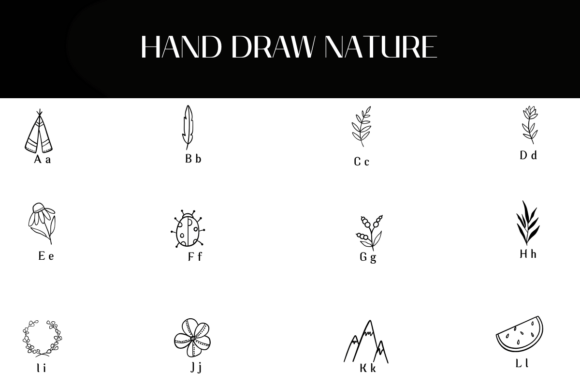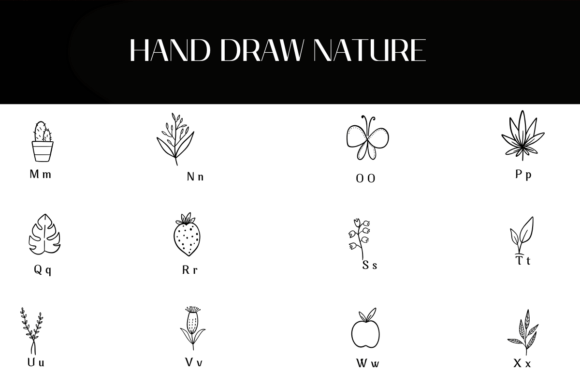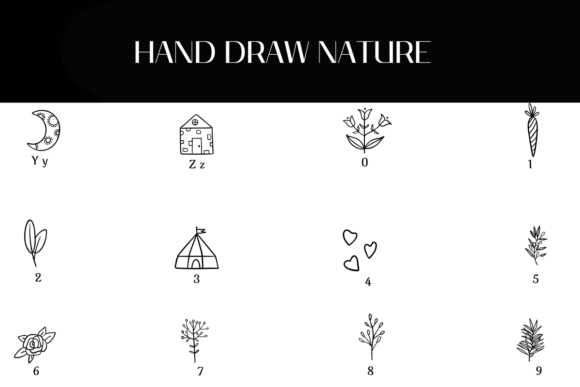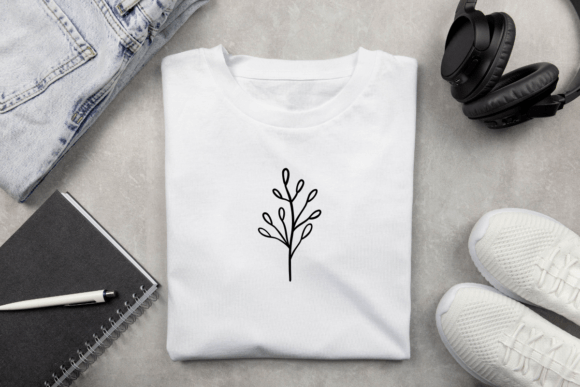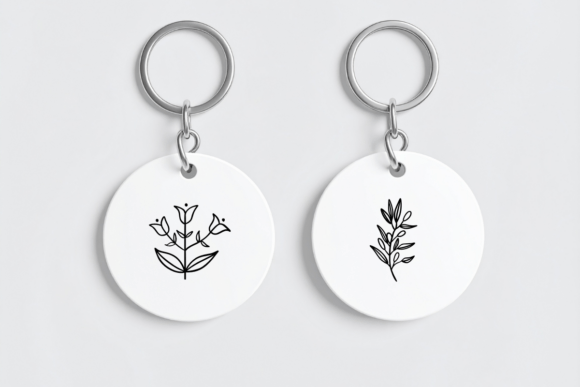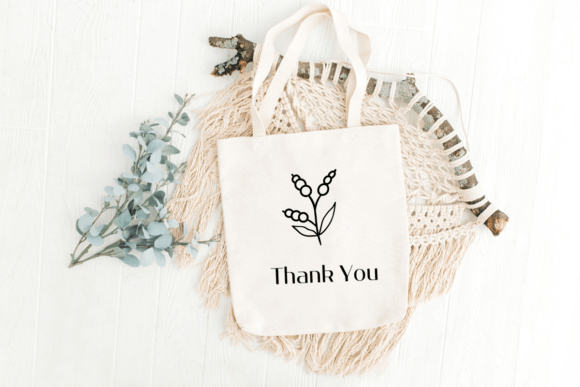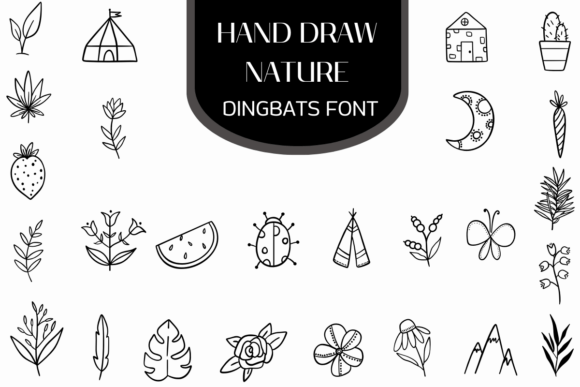
Introducing the Hand Draw Nature Font: A Whimsical Collection of Nature-Themed Icons
Are you a designer, crafter, or DIY enthusiast looking for a unique and charming way to add a touch of nature to your digital projects? Look no further than the Hand Draw Nature Font, a delightful collection of outline icons that will bring a sense of whimsy and organic charm to your designs.
What is the Hand Draw Nature Font?
The Hand Draw Nature Font is a comprehensive set of nature-themed icons, carefully crafted in a whimsical, organic doodle style. This expansive collection includes a wide variety of elements, such as leaves, flowers, tents, mountains, butterflies, and simple houses. Each icon is meticulously drawn to resemble a hand-drawn sketch, giving your designs a personal and human touch.
Key Features of the Hand Draw Nature Font
• Expansive Collection: With a wide range of nature-themed icons, you’ll find everything you need to create beautiful and engaging designs.
• Whimsical Style: The Hand Draw Nature Font features a charming, organic doodle style that adds a touch of personality to your designs.
• Easy to Use: Provided as a single font, these glyphs are simple to use and integrate into your digital projects.
• Perfect for Various Projects: From digital notes and bullet journals to children’s designs, nature branding, and scrapbooking projects, this font is versatile and adaptable.
Uses for the Hand Draw Nature Font
The Hand Draw Nature Font is perfect for a wide range of design projects, including:
• Digital Notes and Bullet Journals: Add a personal touch to your digital notes and bullet journals with these charming nature-themed icons.
• Children’s Designs: Create engaging and educational materials for kids, such as worksheets, activity sheets, and coloring pages.
• Nature Branding: Use these icons to create a cohesive brand identity for your outdoor or eco-friendly business.
• Scrapbooking Projects: Add a touch of whimsy and personality to your scrapbooking projects with these beautiful nature-themed icons.
Benefits of Using the Hand Draw Nature Font
By incorporating the Hand Draw Nature Font into your designs, you’ll enjoy several benefits, including:
• Unique and Eye-Catching Designs: Stand out from the crowd with these charming and distinctive nature-themed icons.
• Time-Saving: With a comprehensive collection of icons at your fingertips, you’ll save time and effort in creating your designs.
• Consistency: Use these icons to create a consistent visual identity across your designs and branding.
Tips for Using the Hand Draw Nature Font
To get the most out of the Hand Draw Nature Font, try these tips:
• Experiment with Different Sizes and Colors: Play around with different sizes and colors to add depth and visual interest to your designs.
• Combine with Other Fonts: Pair the Hand Draw Nature Font with other fonts to create a unique and engaging visual style.
• Use in Conjunction with Images: Combine these icons with images to create a cohesive and visually appealing design.